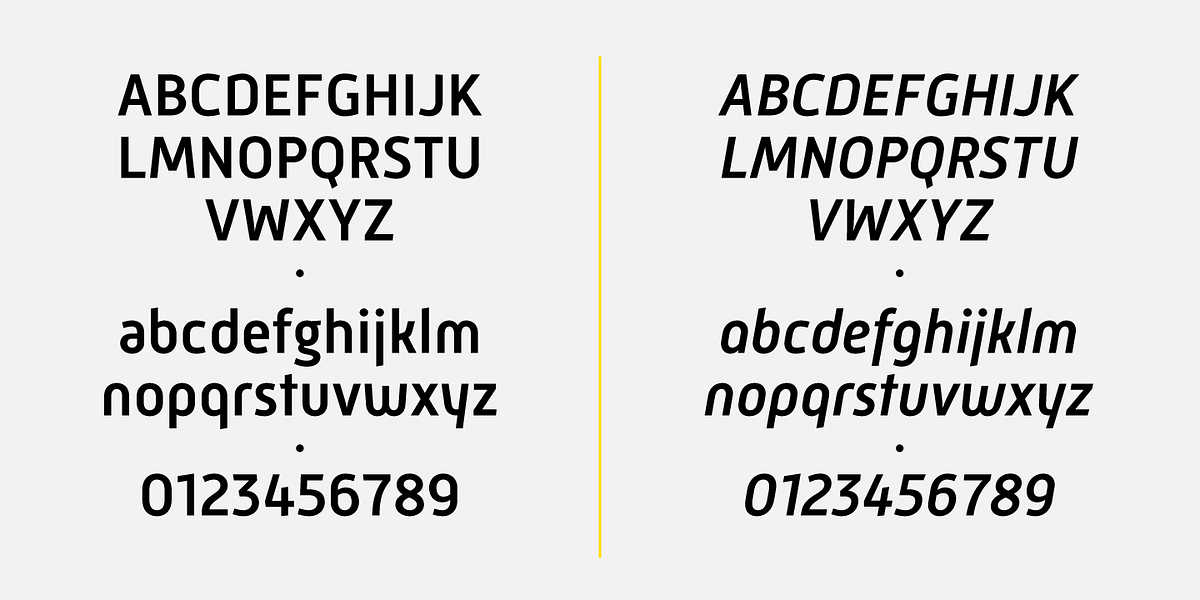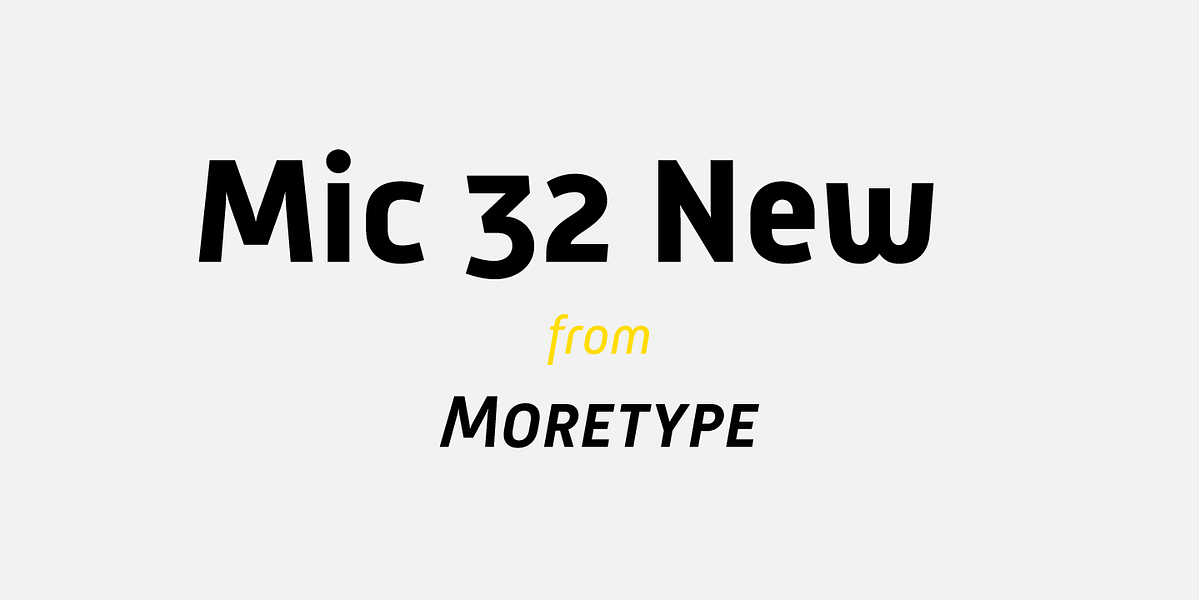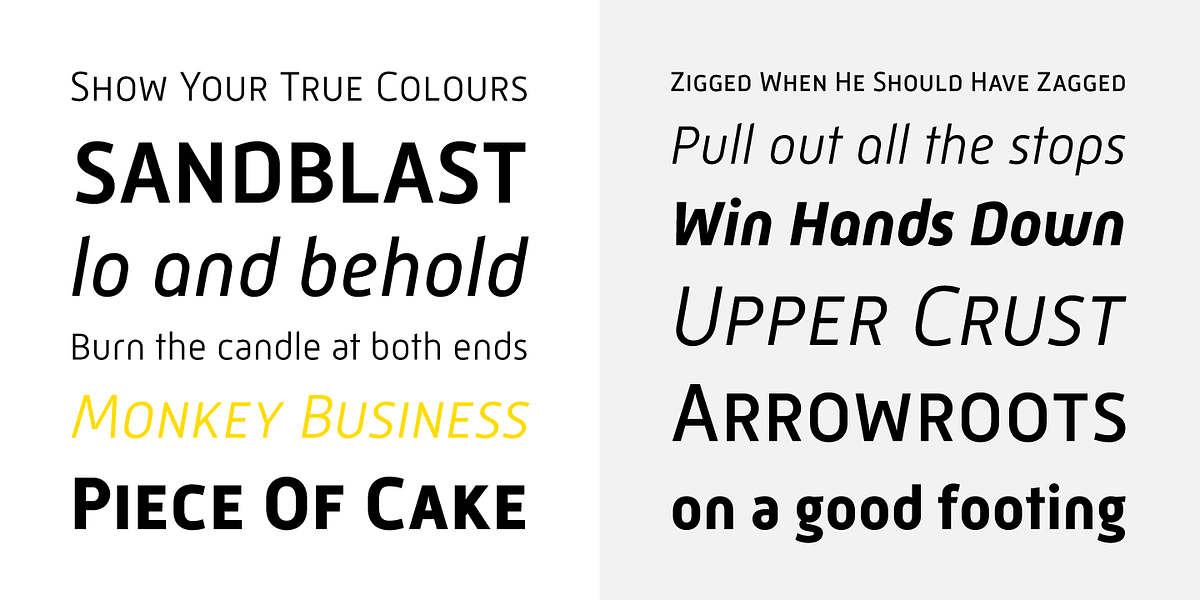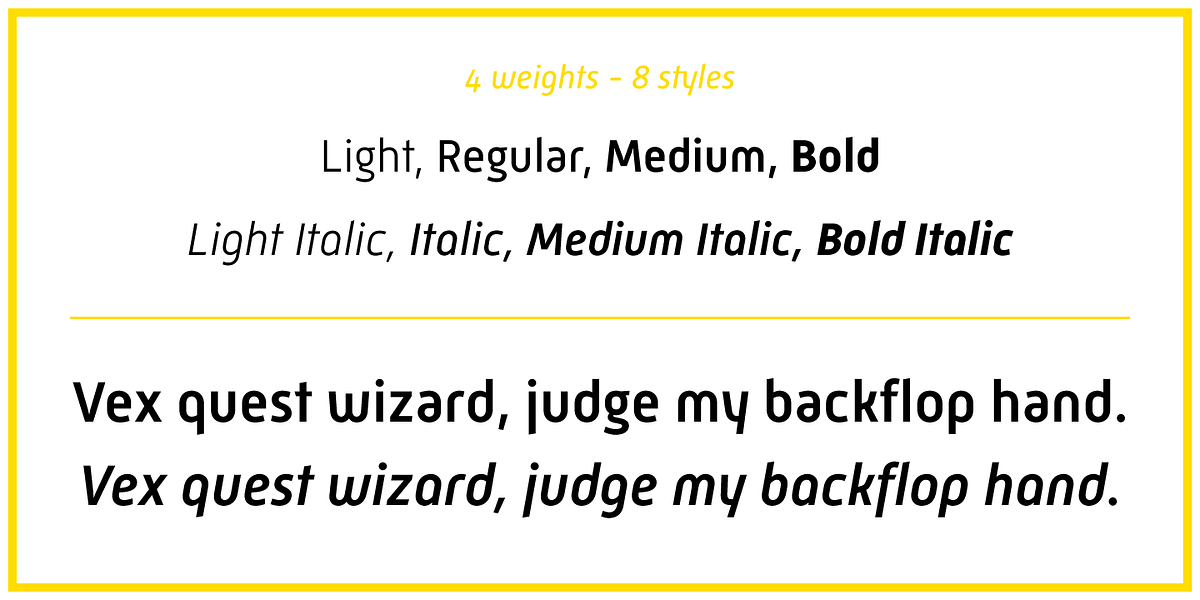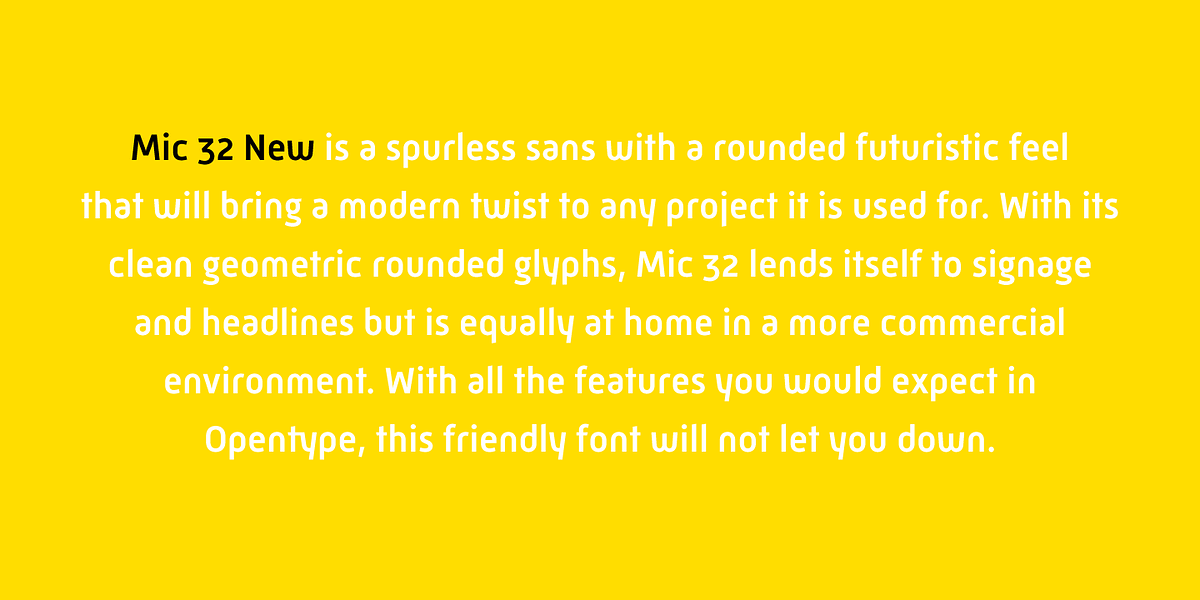
Mic 32 New
Mic32 New is a redesigned version of the popular Mic32 font. It retains its futuristic aesthetic while incorporating updated spacing and kerning for improved readability. The inclusion of OpenType features such as small caps, tabular and proportional numerals, old style numerals, and ligatures enhances its versatility for various typographic needs.